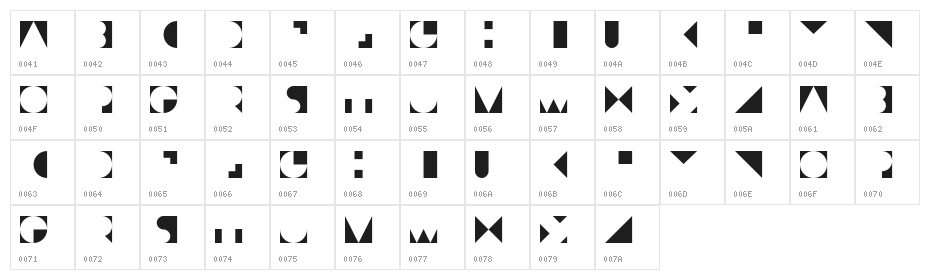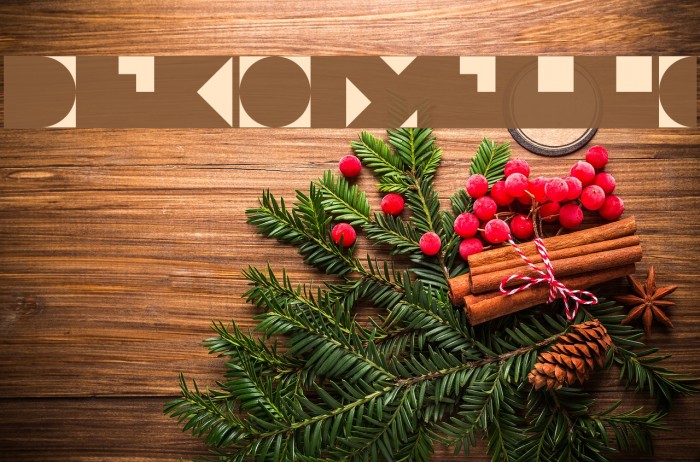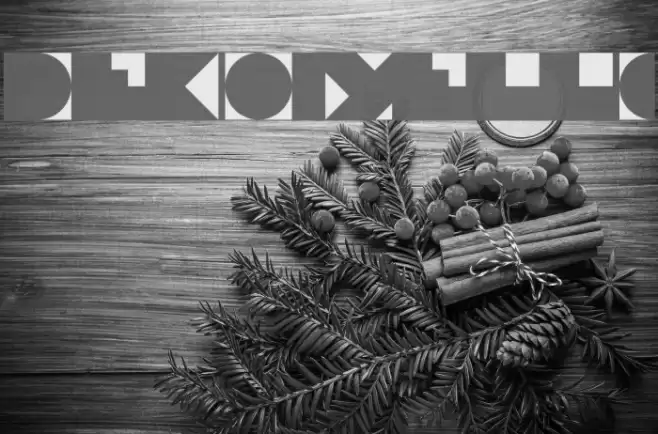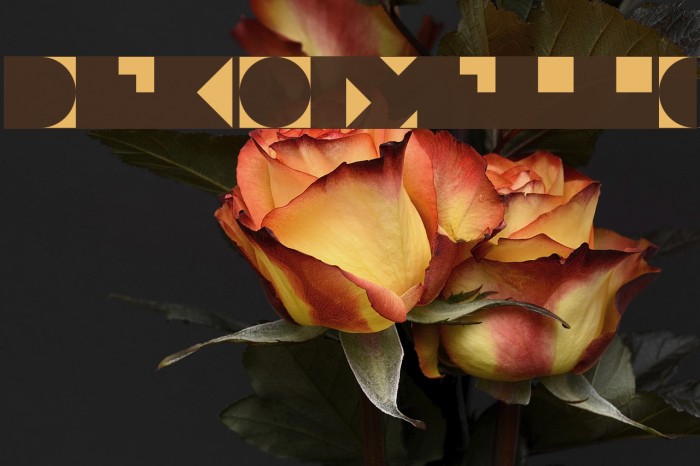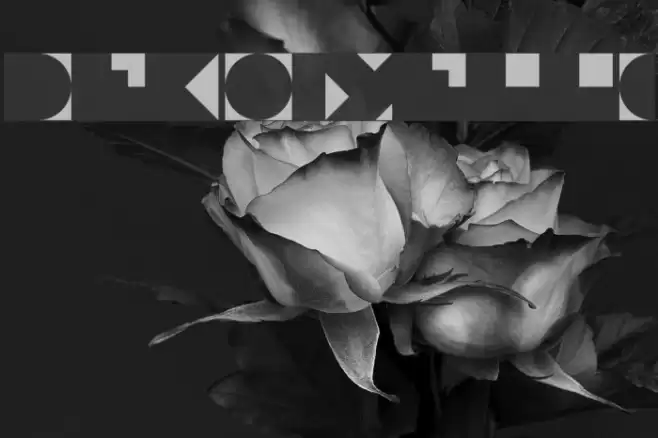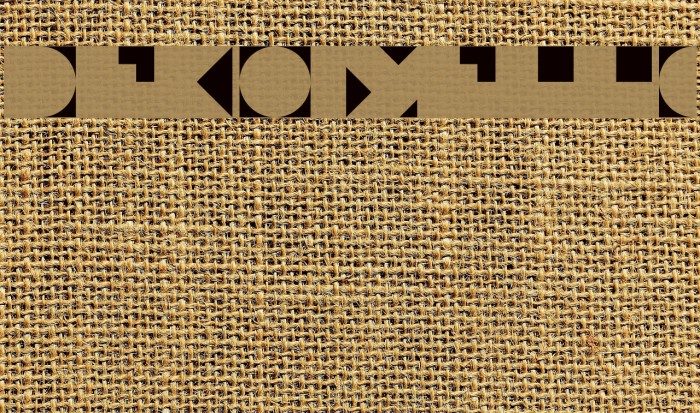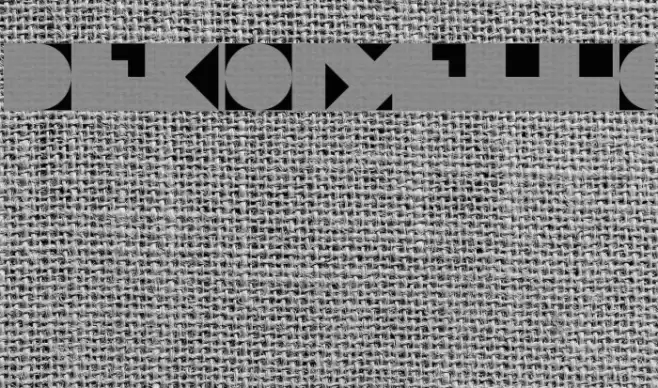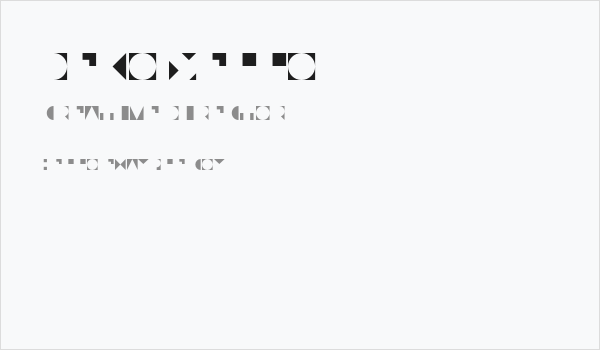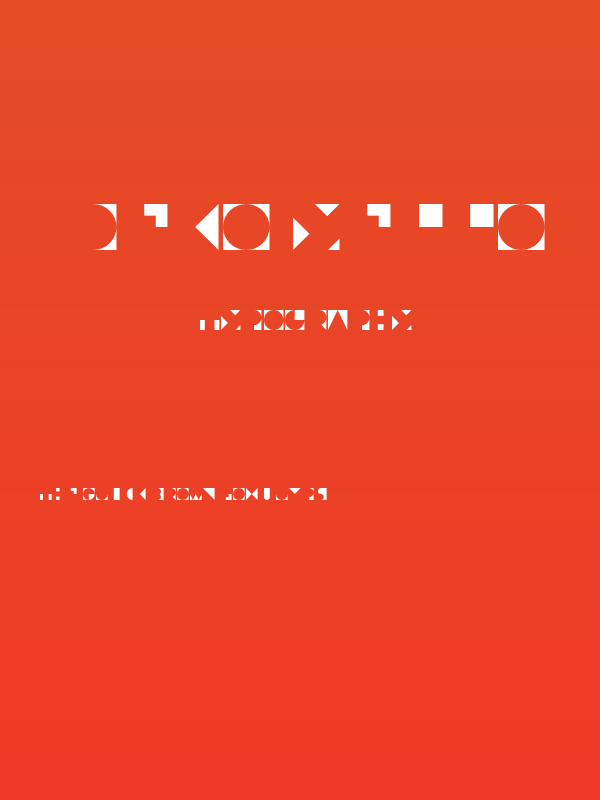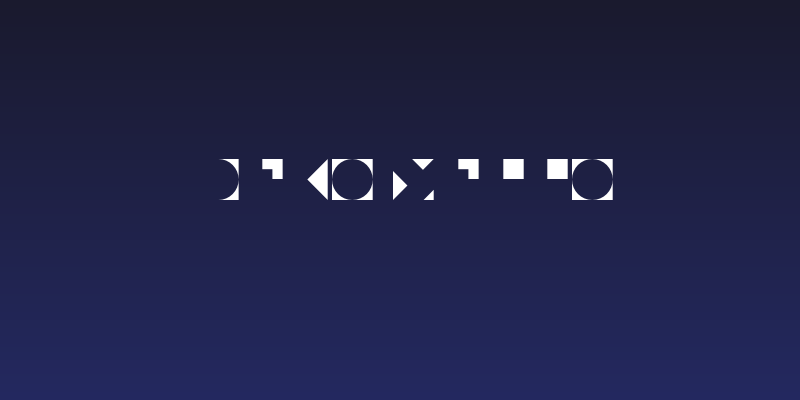
Deko Yello Font
Deko Yello Description
This font features a highly geometric and abstract design, characterized by its use of bold, solid shapes to form each letter. The characters are constructed from a combination of triangles, circles, and rectangles, creating a visually striking and modern appearance. The font lacks traditional curves and serifs, opting instead for sharp angles and clean lines. This gives it a futuristic and avant-garde feel, making it stand out in any design. The uppercase and lowercase letters are consistent in style, maintaining the same geometric theme throughout. The numbers and special characters also follow this pattern, ensuring a cohesive look across all elements.
| Proposed Projects | Ideal for modern art projects, futuristic branding, digital media, and avant-garde posters. |